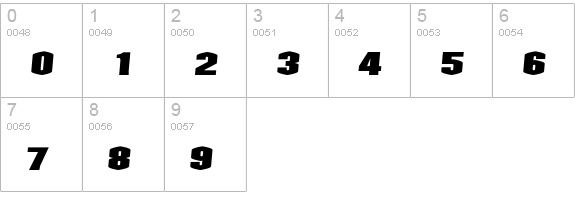
CollosBlackItalic Font Details
CollosBlackItalic is a stunning and elegant font that exudes sophistication and style. Its sleek lines and graceful curves make it perfect for adding a touch of class to any project. The italicized version of the CollosBlack font adds a sense of drama and flair, making it ideal for headings, quotes, and other design elements that need to stand out. This font is not only visually striking but also highly versatile, suitable for a wide range of design applications. Whether you're working on a branding project, creating a poster, or designing a website, CollosBlackItalic will elevate your work to the next level. And the best part? CollosBlackItalic is available for free download at FontsMarket.com. So you can access this beautiful font without any cost, making it a must-have addition to your font collection. Don't miss out on the opportunity to enhance your designs with the timeless elegance of CollosBlackItalic.